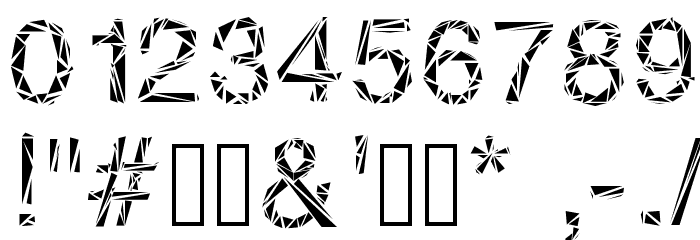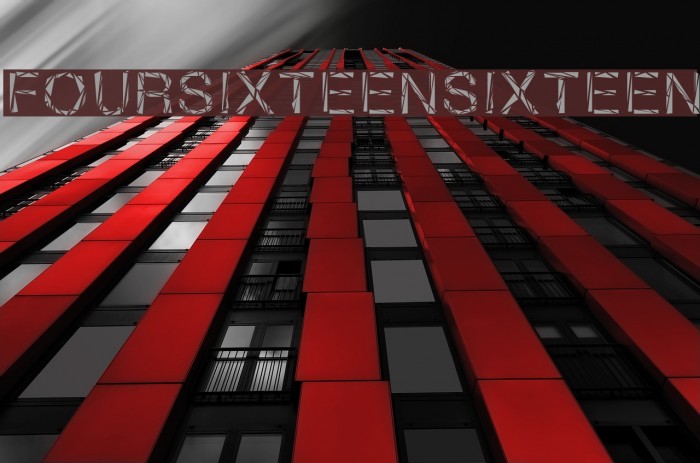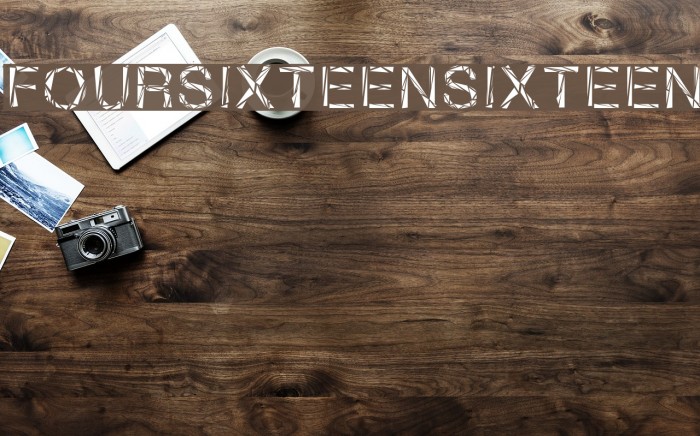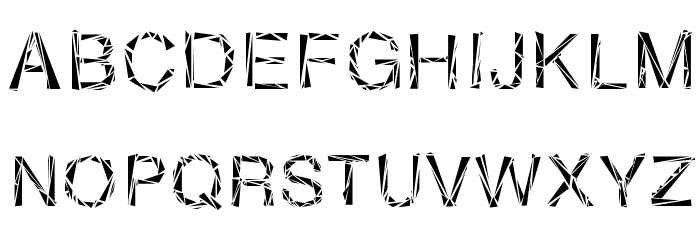
FourSixteenSixteen Font
FourSixteenSixteen Description
This font features a unique, geometric design with a fragmented, angular appearance. Each character is composed of sharp, triangular shapes that create a dynamic and edgy look. The style is bold and eye-catching, making it suitable for modern and innovative design projects. The uppercase and lowercase letters maintain a consistent design, with numbers and special characters following the same aesthetic. This font is ideal for projects that require a futuristic or tech-inspired theme, offering a distinctive visual impact.
A geometric, fragmented font with a bold, angular design from Distorted Eroded fonts.
- Proposed Projects: Ideal for tech-themed posters, modern branding, innovative product packaging, and digital media graphics.